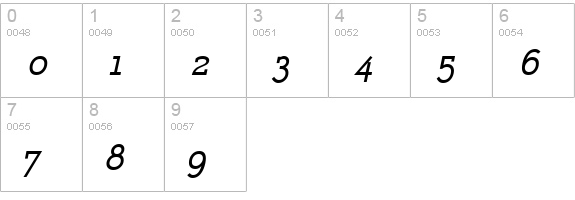
Register Serif BTN SC BoldOblique Font Details
Register Serif BTN SC BoldOblique is a bold and stylish font that exudes elegance and sophistication. With its sleek and slanted design, this font is perfect for adding a touch of modernity to any project. The boldness of the characters makes them stand out, creating a strong visual impact. This font is not only visually striking but also highly versatile. It can be used for a wide range of purposes, from headlines and titles to logos and branding materials. Its unique style adds a touch of personality and uniqueness to any design. One of the best things about Register Serif BTN SC BoldOblique is that it is freely available to download at FontsMarket.com. This means that you can easily access and use this font without any cost. Whether you are a professional designer or a hobbyist, this font is a valuable addition to your collection. The clarity and legibility of Register Serif BTN SC BoldOblique make it highly readable at any size, making it suitable for both print and digital media. Its bold and oblique nature adds a sense of dynamism and energy to your designs, making them visually captivating. With its clean and crisp lines, Register Serif BTN SC BoldOblique is a font that commands attention. It is perfect for creating eye-catching headlines, captivating logos, and impactful branding materials. Its bold and oblique nature adds a sense of drama and flair to your designs, making them stand out from the crowd. In conclusion, Register Serif BTN SC BoldOblique is a versatile and visually striking font that is freely available to download at FontsMarket.com. Its bold and oblique design adds a touch of modernity and dynamism to any project, making it a valuable asset for designers of all levels. Whether you are working on print or digital media, this font is sure to make a bold statement and captivate your audience.